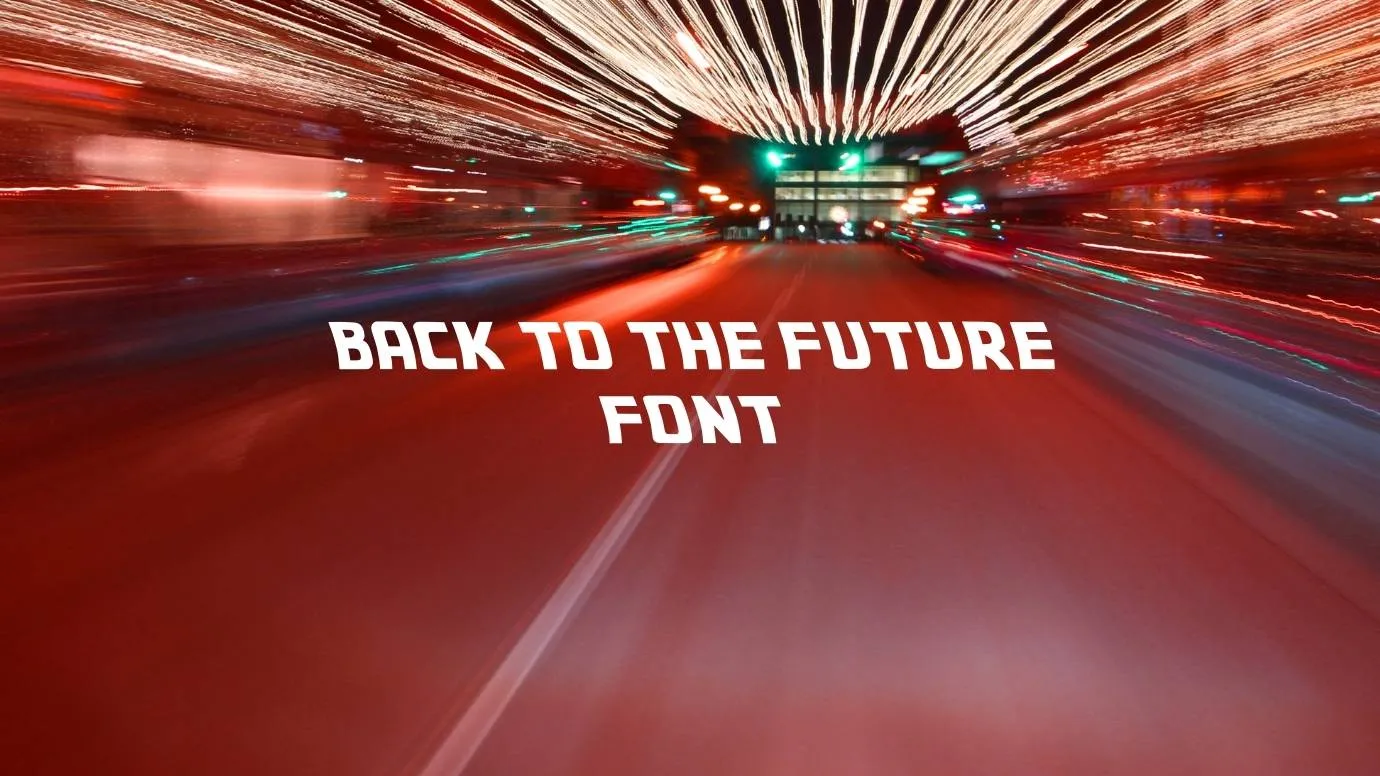
Back to the Future Font Family was employed in the logo of the comedy and adventure film ‘Back to the Future,’ which garnered widespread recognition and understanding. Moreover, this font can be used for personal projects at no cost.
Back to the long run font is the actual font used on the logo having similar letters and characters with Back to the Future font. Both are the best combination of similar typefaces to be used in a design or can also be used with galano grotesque font.
Back to the Future Font Family